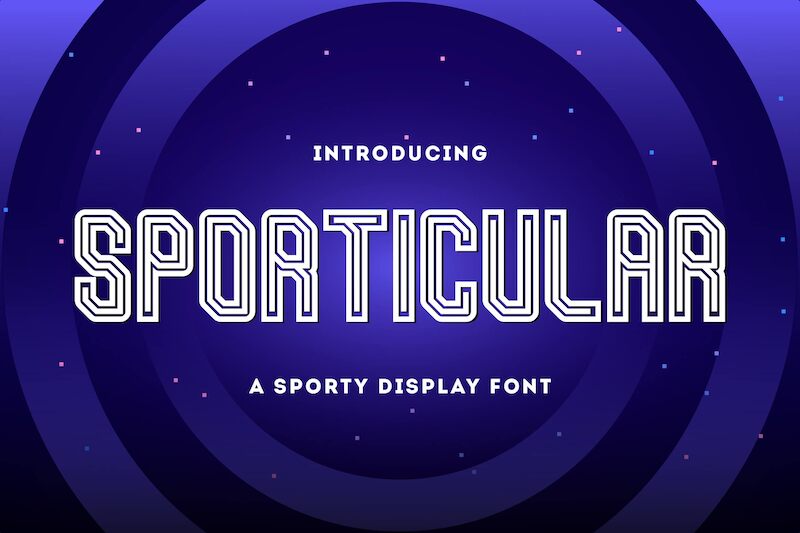
Sporticular
Sporticular font by StringLabs Creative Studio combines geometric and structured elements in a futuristic condensed display. This font includes layered lettering with an expressive industrial feel and strange yet familiar shapes. Sporticular holds a sporty aesthetic, thanks to its locomotion-inspired elements, perfect for all kinds of athletic designs.
Free fonts with this much unique charm are always well-received when used in logo designs, sports branding, futuristic programs, TV shows or movies related merchandise posters. Use it freely as well for covers that would stand out including game covers, book covers especially aimed at children or youth records albums and CD artwork.